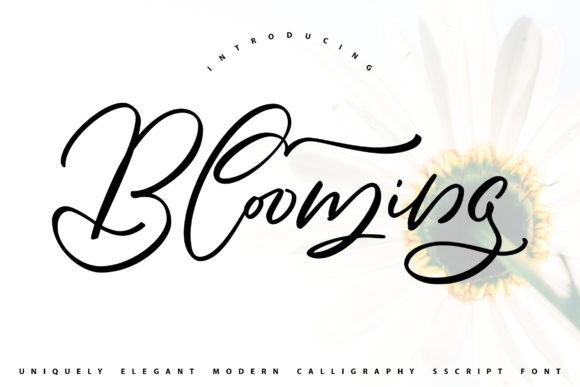
Blooming Font: Elevate Your Designs with Elegance and Flair
In the world of typography, a beautiful font can make all the difference in elevating your design to the next level. If you’re a designer, crafter, or simply someone who appreciates the art of beautiful writing, you’re in luck. Introducing Blooming Font, a delicate, elegant, and flowing handwritten font that’s sure to capture your heart.
The Beauty of Blooming Font
Blooming Font is a stunning example of handwritten typography. Its elegant and flowing script is perfect for a wide range of design projects, from wedding invitations and stationery to branding and packaging. The font’s beautiful and well-balanced characters make it a versatile choice that can match a wide pool of designs.
Whether you’re a professional designer or a crafter who loves to create handmade projects, Blooming Font is the perfect addition to your toolkit. The font’s elegant and flowing script is sure to add a touch of sophistication to any project, from digital designs to handmade crafts.
Use Cases for Blooming Font
So, what can you use Blooming Font for? The possibilities are endless! Here are a few ideas to get you started:
- Wedding invitations and stationery: Add a touch of elegance to your wedding designs with Blooming Font.
- Branding and packaging: Use Blooming Font to create beautiful and eye-catching packaging and branding materials.
- Digital designs: Add a personal touch to your digital designs, such as social media graphics and blog posts.
- Handmade crafts: Use Blooming Font to add a touch of elegance to your handmade crafts, such as scrapbooking and card making.
Why Choose Blooming Font?
So, why choose Blooming Font over other fonts? Here are just a few reasons:
- Unique and elegant design: Blooming Font is a one-of-a-kind font that’s sure to stand out from the crowd.
- Versatile: Blooming Font can be used for a wide range of design projects, from digital designs to handmade crafts.